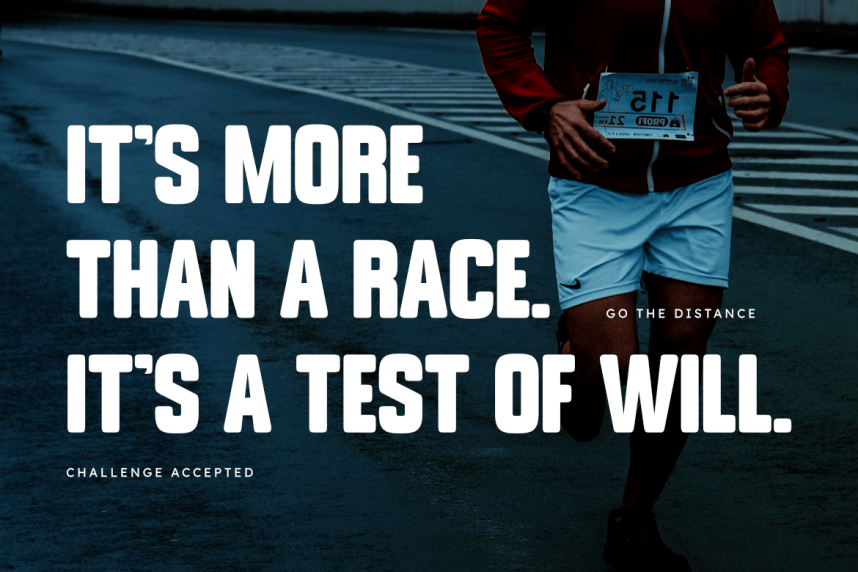
Movie Maker Font
Movie Maker Font is a captivating, friendly rounded condensed sans serif font designed with a distinct modern cinematic aesthetic. Its bold weight and softly curved edges create a strong yet approachable presence, perfect for movie posters, film titles, trailers, impactful headlines, and engaging branding. Movie Maker includes both uppercase and lowercase letters, multilingual support, and over 160 glyphs, making it a highly versatile and professional display font for any project seeking a contemporary, confident, and memorable look.